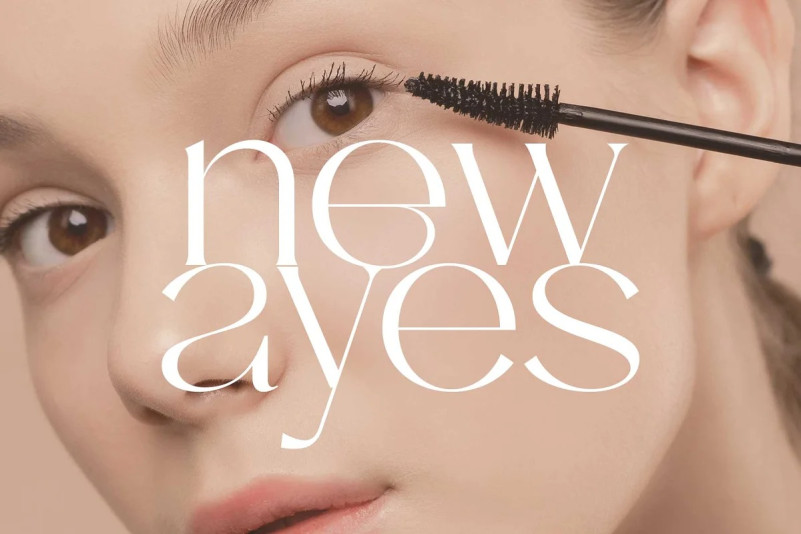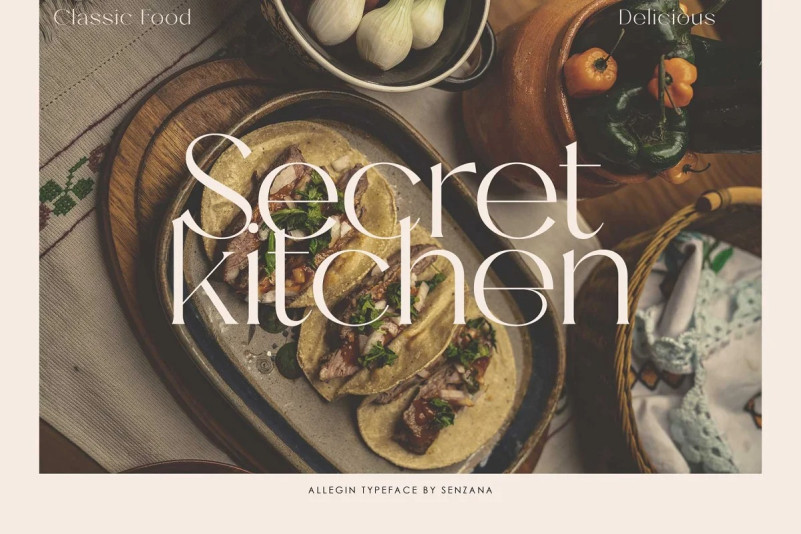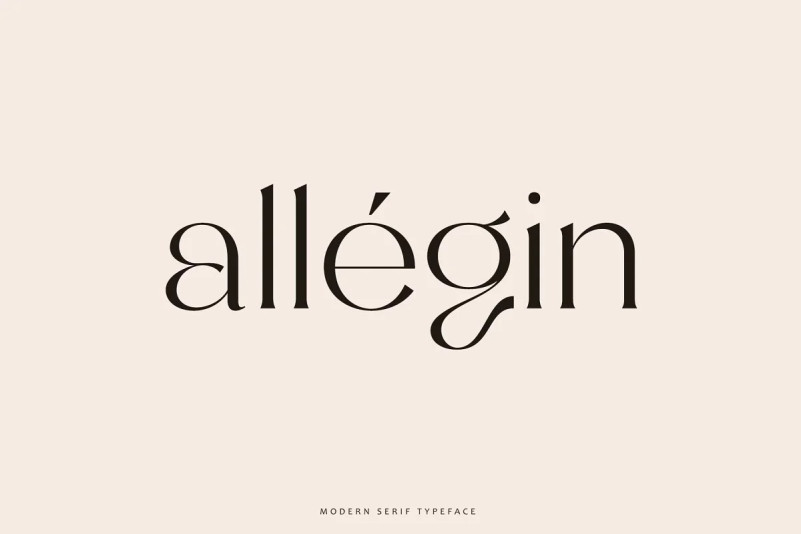
Allegin Font
Allegin Font – opentype which has a clean, modern and elegant style. looks like it would be great to complete your work. There are several alternative options and ligatures, get an update of this font for free, if you have already bought it.
A wide variety of useful glyphs are included – check out the preview images of all the glyphs.